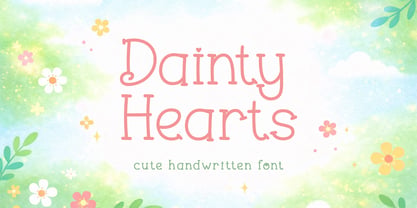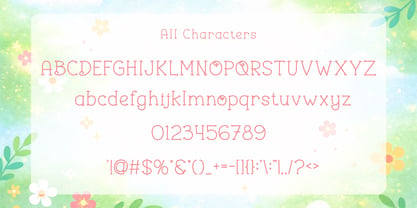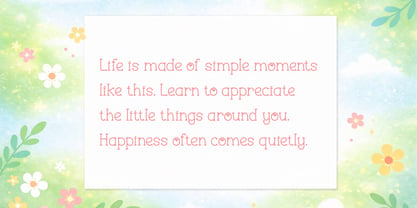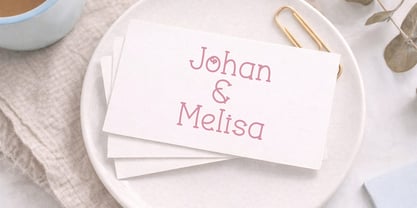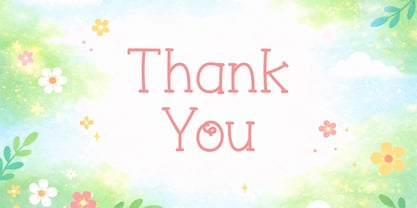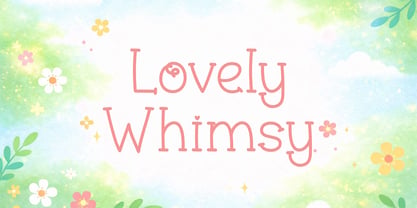
Dainty Hearts
by Qiubare Studio
The Dainty Hearts Font Family was designed by Michael Everson and published by Qiubare Studio. Dainty Hearts contains 1 styles. More about this family
Dainty Hearts is a cute handwritten font that exudes a light, playful personality, enhanced by delightful heart details. Its thin strokes and gentle curves create a soft and friendly appearance, making it ideal for designs that require a cute and approachable touch. This font is perfect for greeting cards, children's projects, planners, stickers, notebooks, classroom materials, branding, social media posts, and various crafting designs. The decorative heart accents add character while maintaining readability and cleanliness in the text. Whether you're working on printables, Cricut projects, or digital artwork, Dainty Hearts ensures your design feels warm, cheerful, and unique. ✨ What’s Included: Uppercase & lowercase letters, Numbers & punctuation, Decorative heart characters, Easy-to-read handwritten style.
Designers: Michael Everson
Foundry: Qiubare Studio